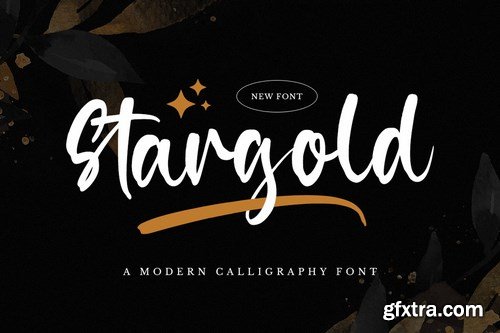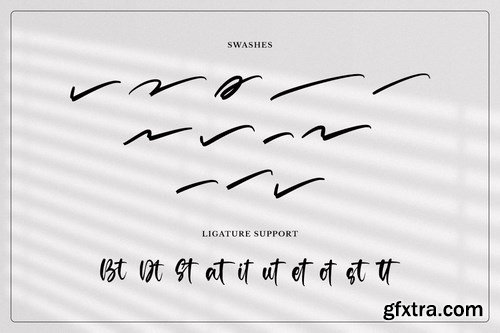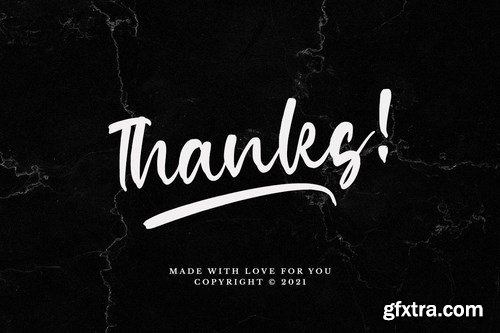
Stargold is an elegant and bold script font. Fall in love with its incredibly versatile style and use it to create gorgeous wedding invitations, beautiful stationary art, eye-catching social media posts, and much more!